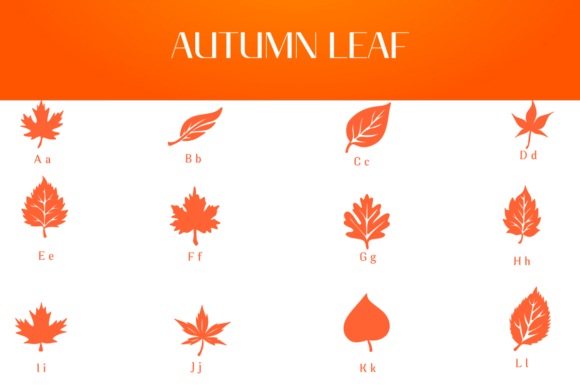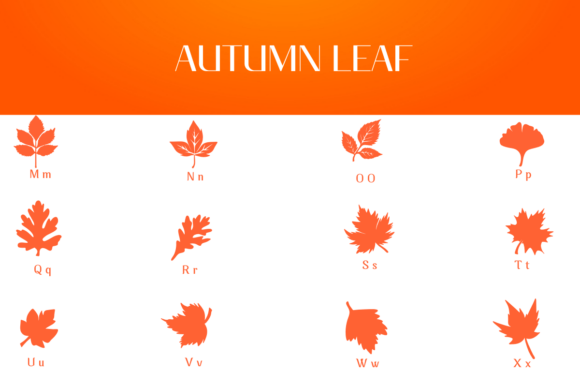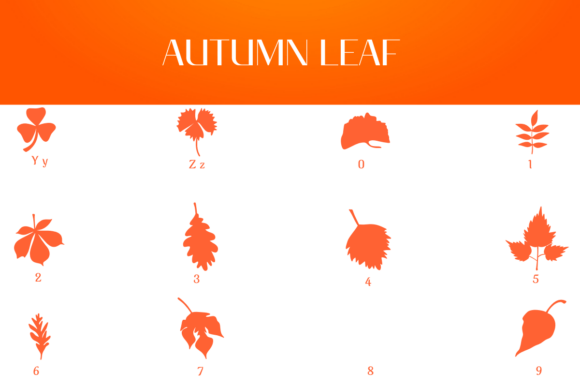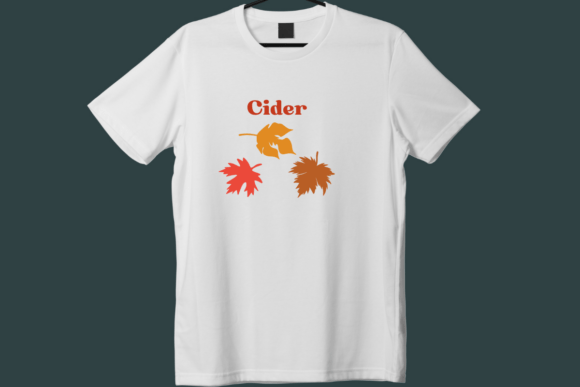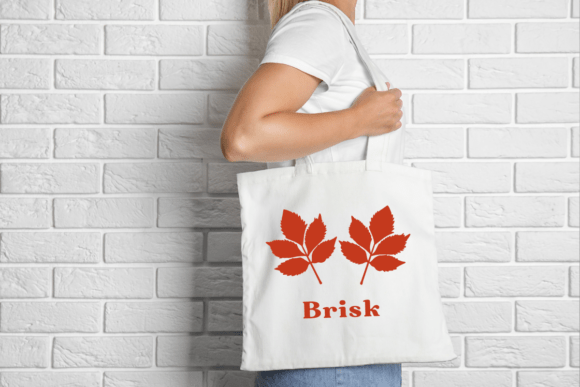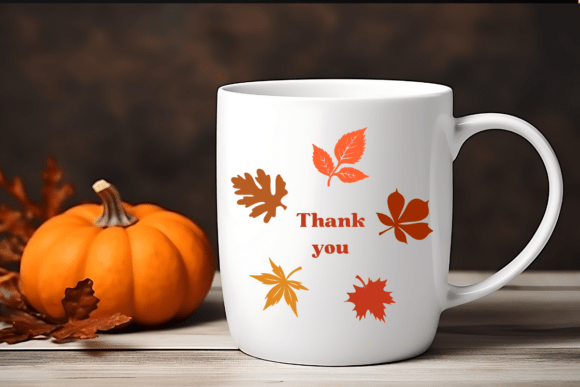
Autumn Leaf Font: Bringing the Beauty of Fall to Your Designs
As the seasons change and the leaves begin to turn, designers and crafters alike look for ways to capture the warmth and nostalgia of autumn in their work. One of the most effective ways to do this is with the Autumn Leaf Dingbats Font, a seasonal decorative font that transforms text into a collection of elegant leaf silhouettes inspired by the beauty of fall.
What is the Autumn Leaf Dingbats Font?
The Autumn Leaf Dingbats Font is a unique and versatile font that replaces each letter, number, and symbol with a unique leaf illustration. This font offers a toolkit for designers who want to add a touch of autumn charm to their work, from elegant seasonal branding to playful Halloween crafts or Thanksgiving decorations.
Key Features of the Autumn Leaf Dingbats Font
- Crisp Vector-Based Shapes: The font features crisp, vector-based shapes that maintain high-quality detail at any size, making it perfect for both small-scale crafts and large-format print projects.
- Variety of Leaves: The set includes a wide variety of leaves, ranging from maple, oak, birch, elm, chestnut, ginkgo, sycamore, and beech, to more stylized botanical designs.
- Unique Character Illustrations: Each character carries its own identity, reflecting the rich textures and colors associated with fall.
- Endless Composition Possibilities: The variety of silhouettes allows designers to mix and match for endless compositions.
Uses for the Autumn Leaf Dingbats Font
The Autumn Leaf Dingbats Font is perfect for a wide range of design projects, including:
- Seasonal Branding: Add a touch of autumn charm to your brand’s packaging, website, or social media graphics.
- Halloween Crafts: Use the font to create spooky and fun designs for Halloween, such as invitations, decorations, or party favors.
- Thanksgiving Decorations: Create beautiful and elegant designs for Thanksgiving, such as place cards, centerpieces, or gift tags.
- Fall-Themed Stationery: Design seasonal stationery, such as greeting cards, invitations, or letterhead, with a touch of autumn charm.
Tips for Using the Autumn Leaf Dingbats Font
Here are a few tips for getting the most out of the Autumn Leaf Dingbats Font:
- Experiment with Different Colors: Try out different colors and textures to add depth and interest to your designs.
- Mix and Match Leaves: Combine different leaf silhouettes to create unique and interesting compositions.
- Use with Other Autumn-Themed Elements: Pair the font with other autumn-themed elements, such as images of pumpkins, acorns, or fall flowers, to create a cohesive look.
The Autumn Leaf Dingbats Font is a versatile and beautiful font that can add a touch of autumn charm to any design project. With its crisp vector-based shapes, variety of leaves, and endless composition possibilities, it’s perfect for designers and crafters who want to capture the warmth and nostalgia of fall. Whether you’re creating seasonal branding, Halloween crafts, or Thanksgiving decorations, this font is sure to inspire your creativity and help you create stunning designs that will leave a lasting impression.